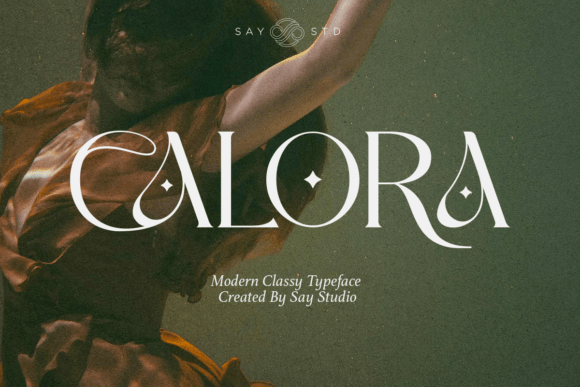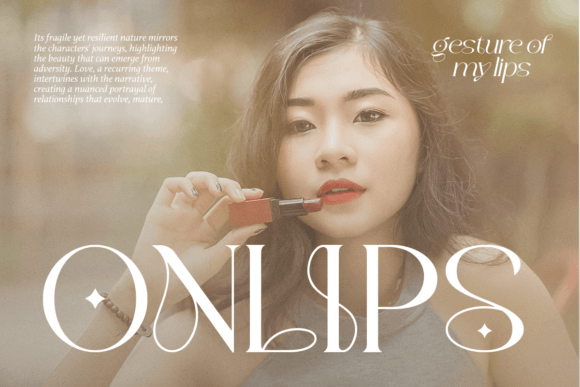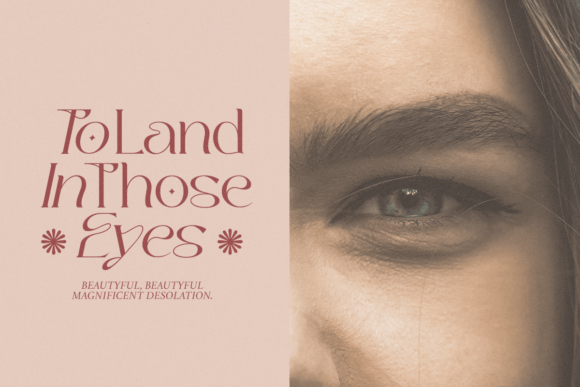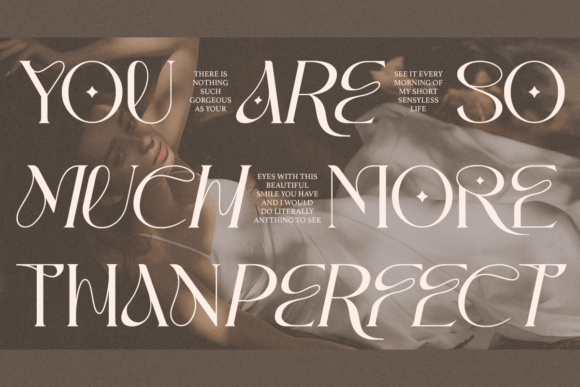
Calora Font: Elegant Serif Typography for Luxury Branding & Logo Design
About the Calora Font
Crafted with precision, the Calora Font is ready to bring your ideas to life. Calora is a playful yet elegant serif. It teases your eyes with its curves yet is still able to maintain its classy composure. Perfect for an elegant & luxury logo, classy editorial design, women’s magazine, fashion brand, cosmetic brand, fashion promotion, modern advertising design, invitation card, art quote, home decoration, book/cover titles, special events, and much more.
Calora’s elegant yet playful nature makes it ideal for headlines, short-form text, and branding applications where a touch of sophistication is desired. It excels in logo design, packaging for luxury goods, and short-form marketing materials such as posters and social media graphics. However, its delicate serifs and relatively high x-height make it less suitable for body text or lengthy paragraphs, where readability can suffer. Avoid using it for UI elements or situations requiring extensive text blocks.
To complement Calora’s personality, consider pairing it with a clean sans-serif like Montserrat for body text, creating a sophisticated contrast. For a more playful feel, a rounded sans-serif such as Bebas Neue could be used for supporting elements. Alternatively, a delicate script font like Great Vibes could enhance the elegant aspect of Calora in invitations or other special occasion designs.
Calora projects an overall air of sophisticated playfulness. It is best suited for brands and projects aiming for a balance of elegance and approachability, often associated with luxury, fashion, and lifestyle products. The font’s inherent charm makes it a strong choice where visual appeal and subtle personality are paramount.